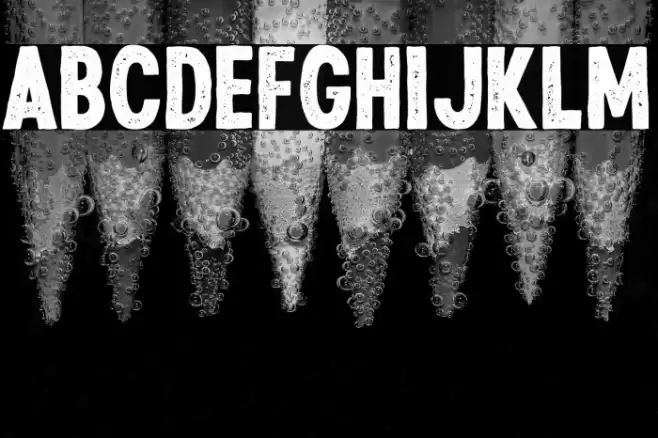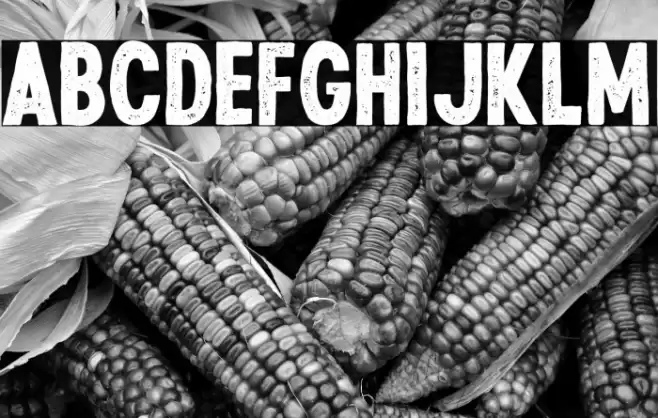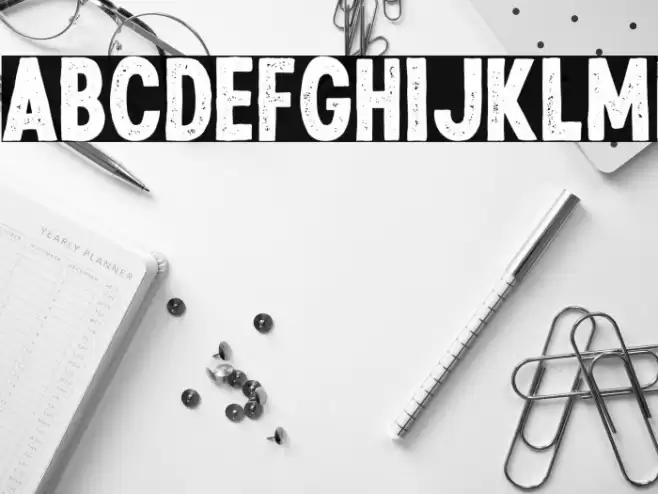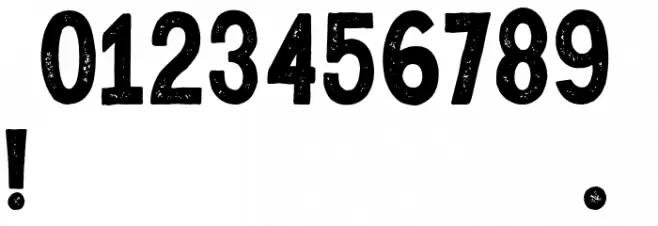
RiversideTexture Font
RiversideTexture Description
This font features a bold, textured style with a distressed appearance, giving it a rugged and vintage feel. The uppercase letters are prominent and impactful, while the numbers and punctuation maintain the same textured effect. The characters have a consistent width, providing a uniform look across the board. The texture adds a unique character, making it suitable for projects that require a rustic or handcrafted aesthetic. The font's boldness ensures it stands out, making it ideal for attention-grabbing designs.
A bold, textured font with a vintage, distressed style from Uncategorized fonts.
- Font: RiversideTexture
- Proposed Projects: Perfect for posters, logos, branding, packaging, and any design needing a vintage or rustic touch.
- Overall Style: Vintage